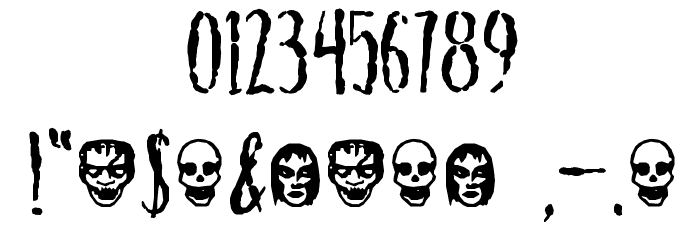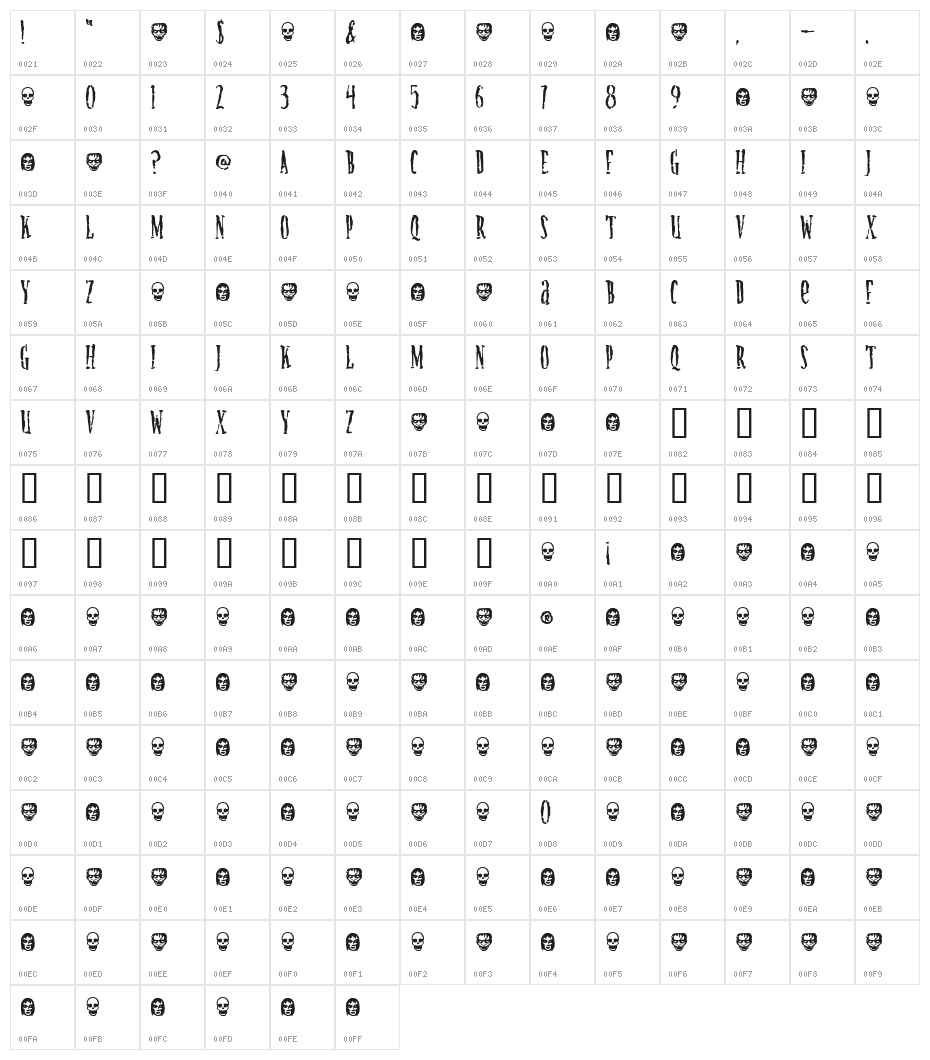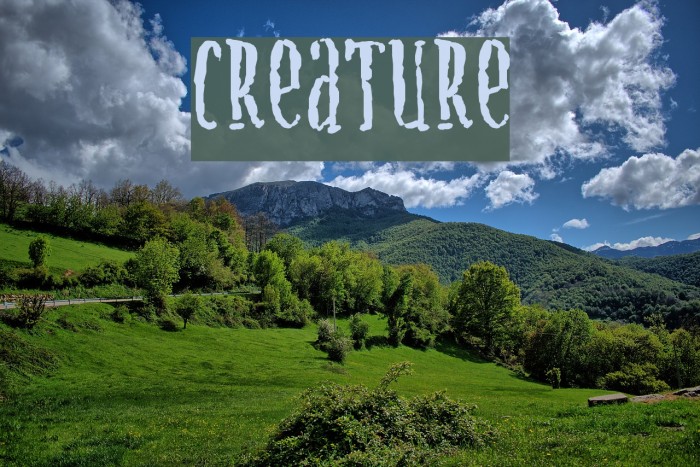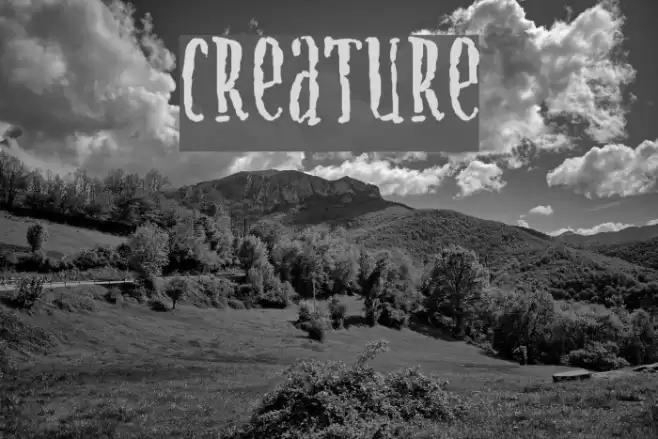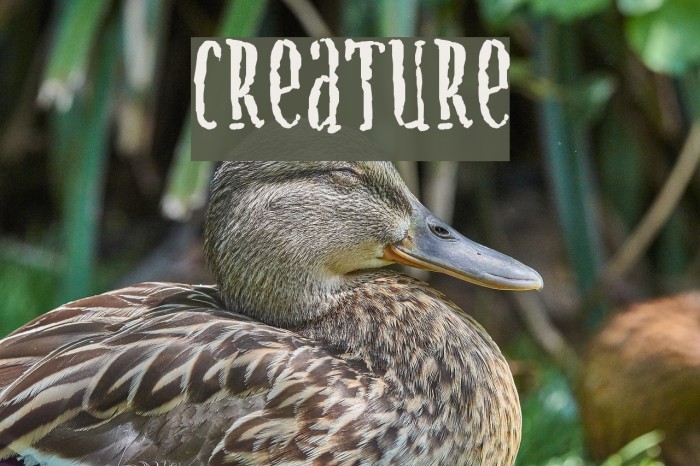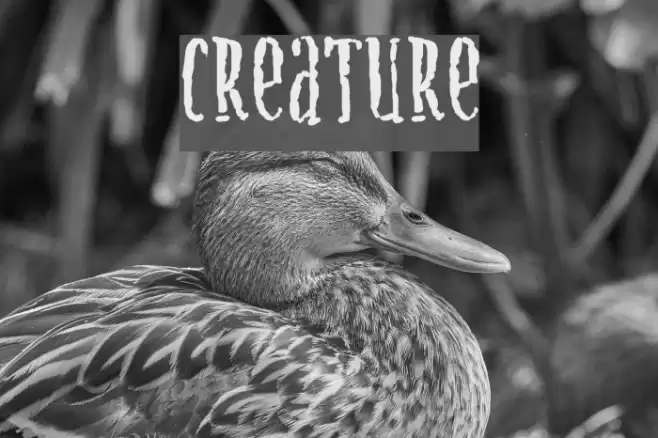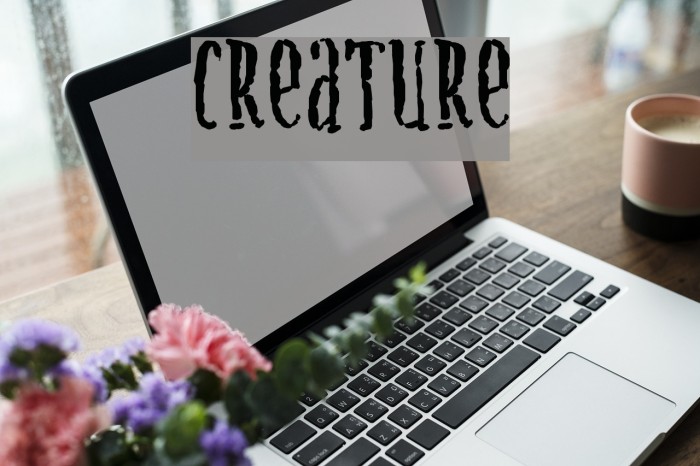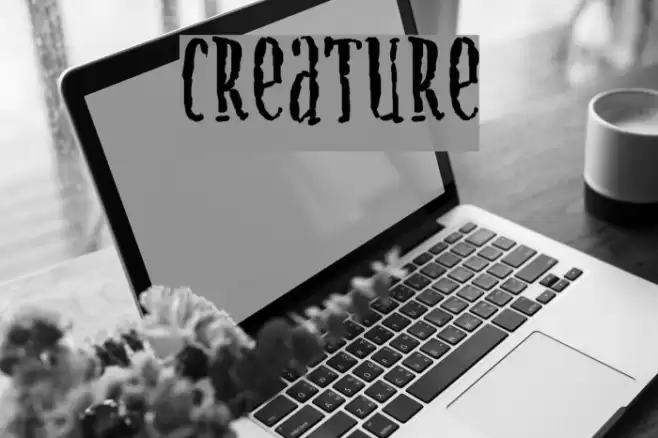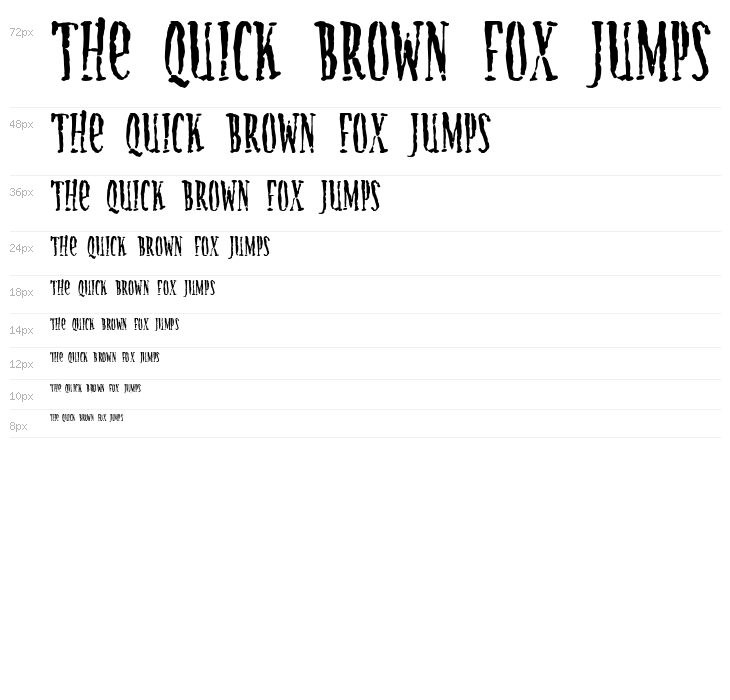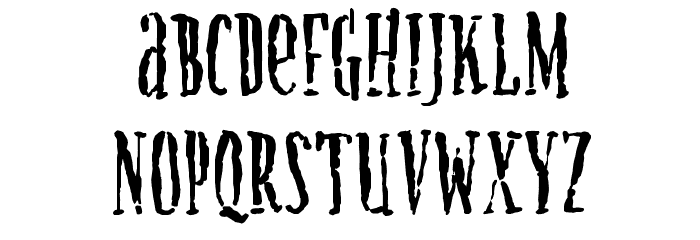
Creature Font
Creature Description
This font features a bold and rugged design, with irregular edges and a distressed appearance that gives it a hand-crafted, eerie feel. The uppercase and lowercase letters maintain a consistent style, with jagged edges and uneven strokes that suggest a sense of decay or wear. Numbers and special characters follow the same aesthetic, adding to the overall theme of horror or the macabre. The font's unique style is further emphasized by the inclusion of skull-like symbols, enhancing its spooky and unsettling vibe.
| Proposed Projects | Ideal for Halloween-themed projects, horror movie posters, haunted house flyers, or any design requiring a spooky, unsettling vibe. |